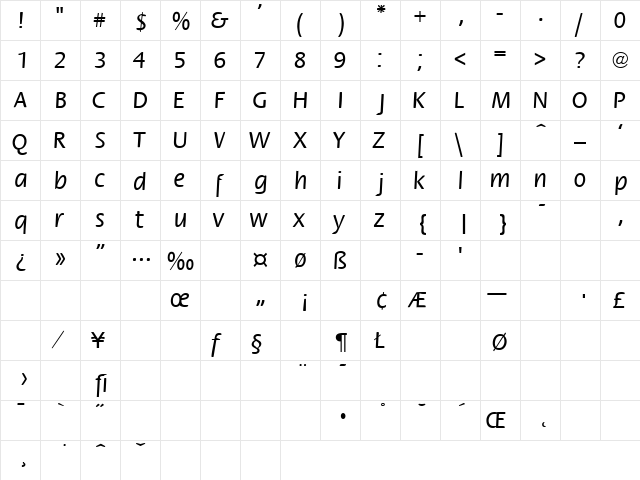
FusataSSk Regular Font Preview
FusataSSk Regular
Design Context for FusataSSk Typeface
FusataSSk offers clean, dependable letterforms without strong stylistic allegiance, making it a practical choice for designers who need flexibility.